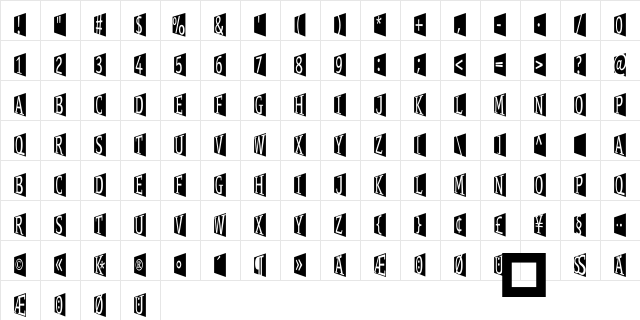
StageGlyphs Regular
Design Context for StageGlyphs Typeface
StageGlyphs is a composed and adaptable typeface that performs quietly and consistently across a wide range of design contexts.